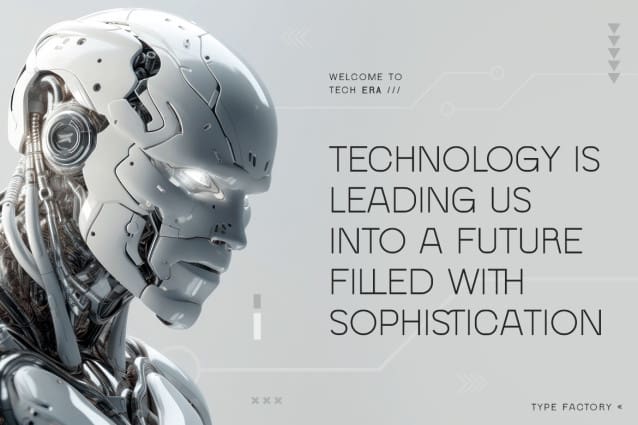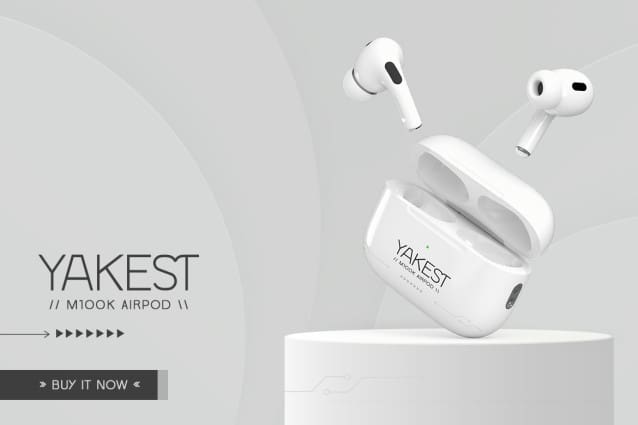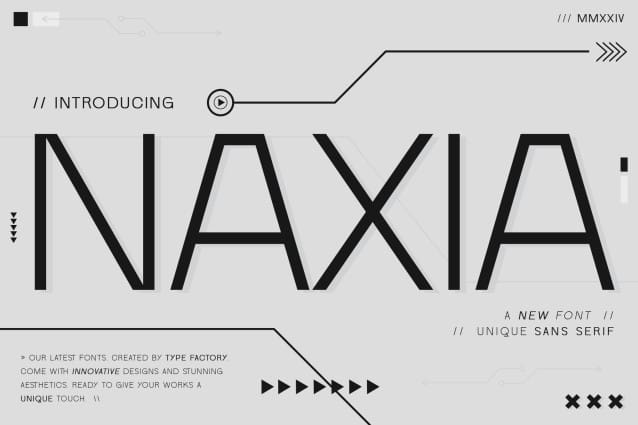
Naxia Font
Naxia Font is a sleek and modern sans serif font that combines minimalism with a distinctive touch. Its clean, flowing letterforms are designed for legibility and style, making it ideal for branding, editorial layouts, web design, and marketing materials. Naxia’s unique touches set it apart from traditional serif fonts, giving your projects a fresh and contemporary look. Ideal for both print and digital use, Naxia Font brings a balance of simplicity and sophistication to any design, ensuring your content is both eye-catching and engaging.